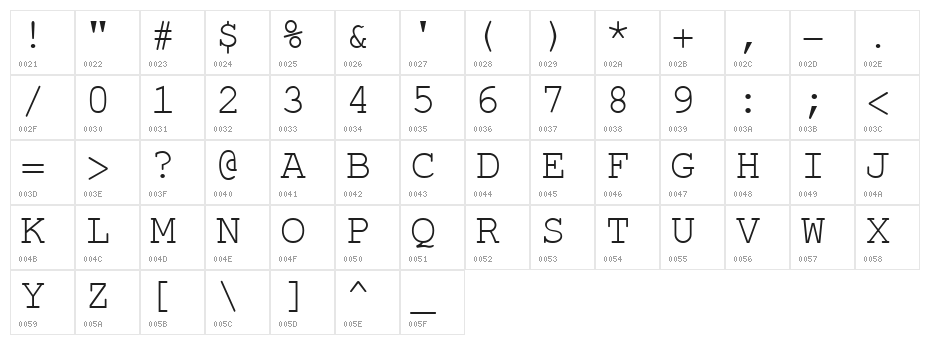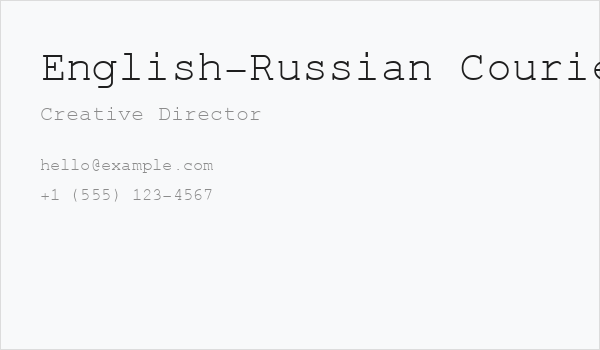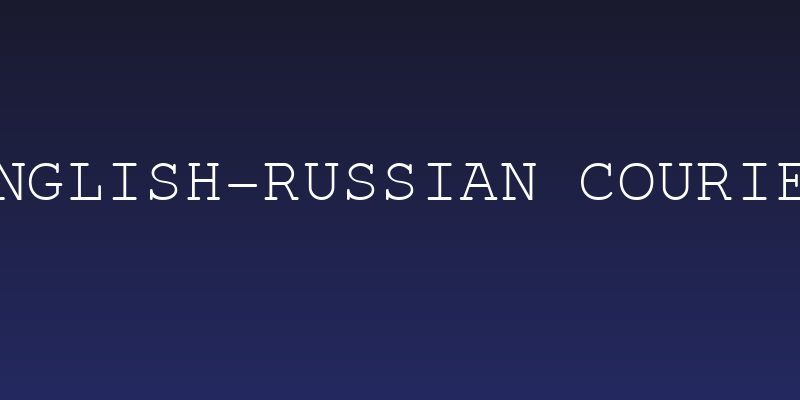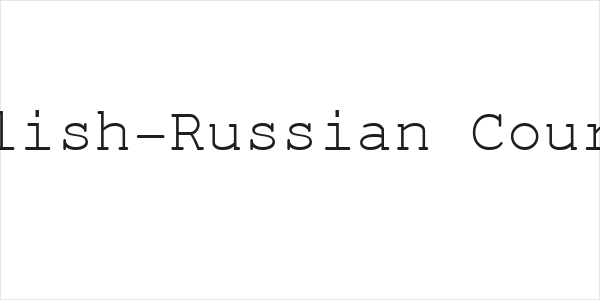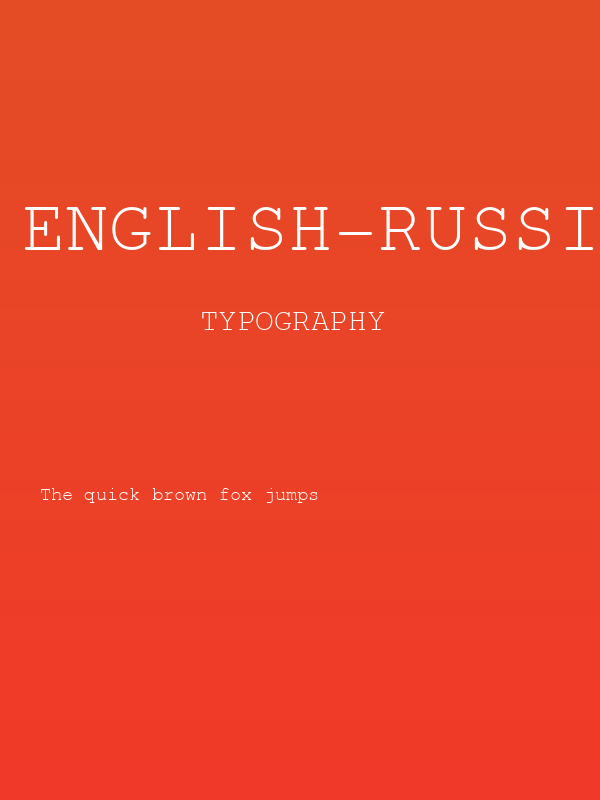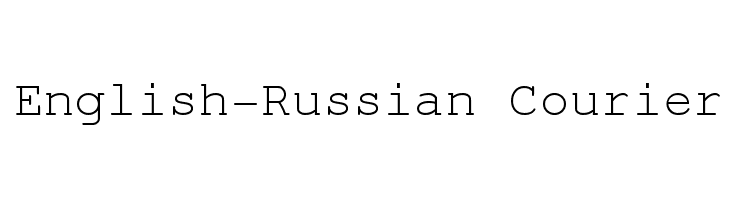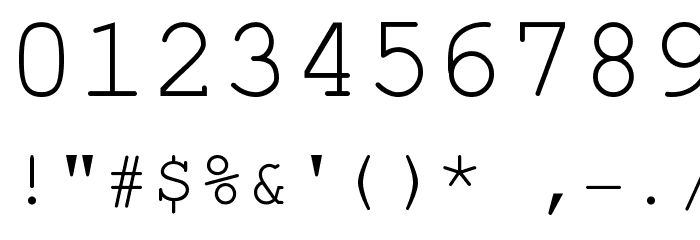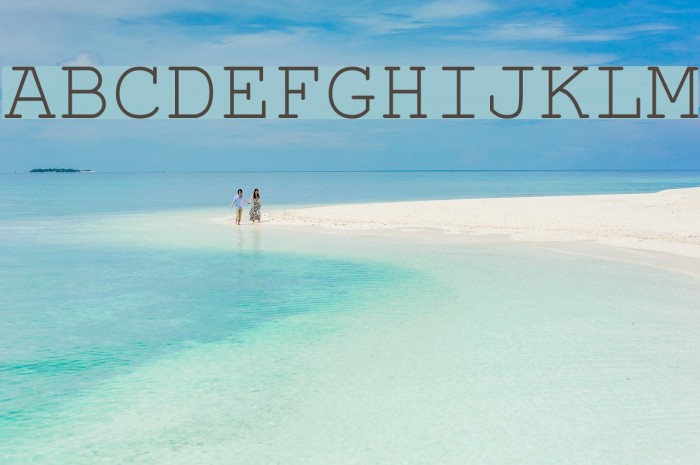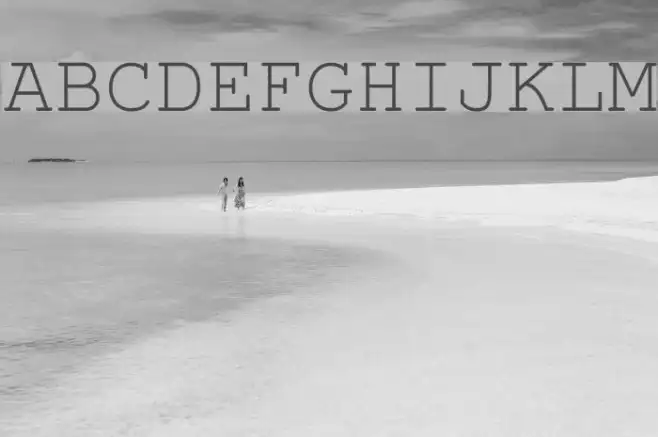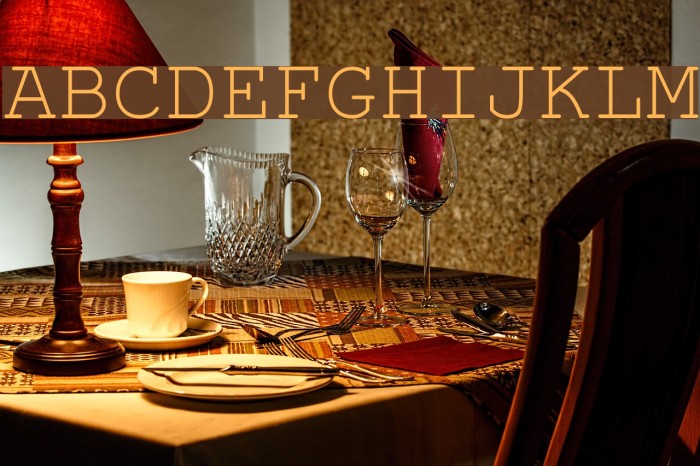
English-Russian Courier Font
English-Russian Courier Description
This font features a monospaced design, characterized by its uniform spacing where each character occupies the same amount of horizontal space. The letters are clean and straightforward, with a mechanical and utilitarian aesthetic. The strokes are consistent in width, providing a low contrast appearance. The uppercase and lowercase letters maintain a similar structure, enhancing readability and clarity. The numerals and special characters are equally well-defined, making this font suitable for coding, tabular data, and any application requiring precise alignment.
| Use Case | Coding, Technical documentation, Data tables |
| Proposed Projects | Ideal for coding environments, technical documentation, data tables, and any project requiring precise alignment. |